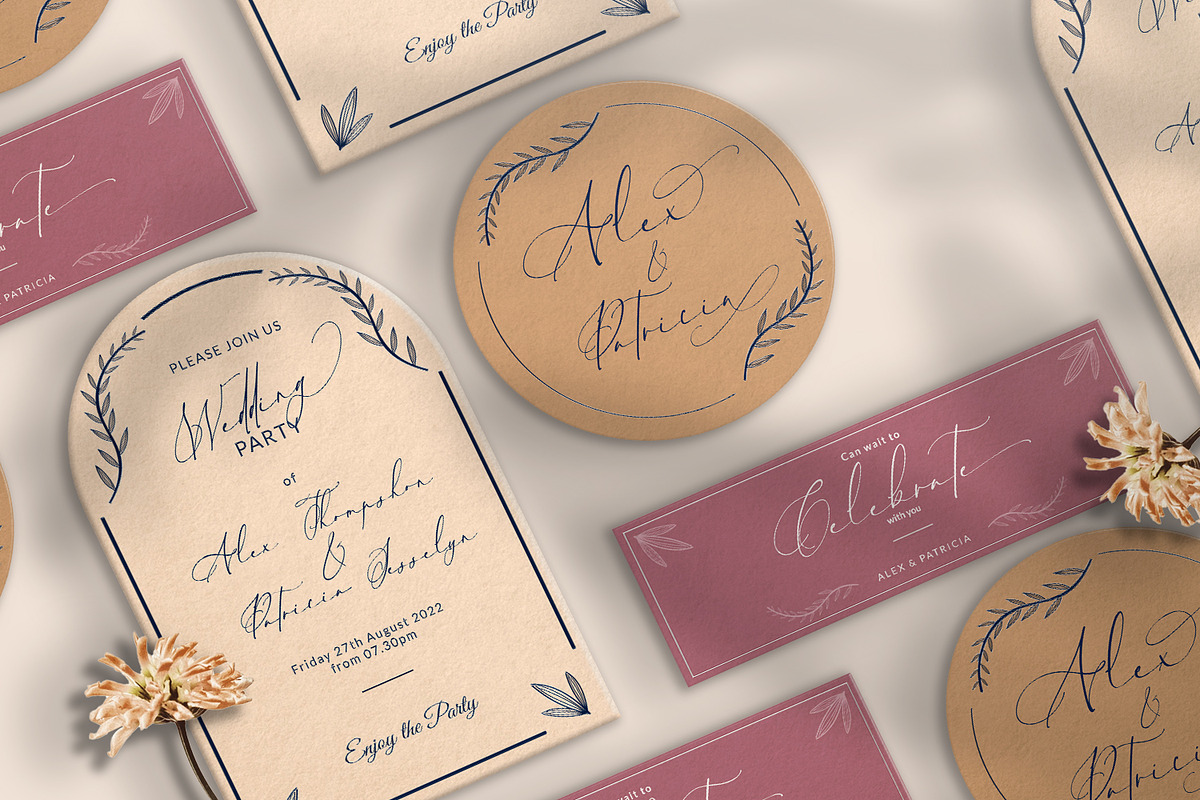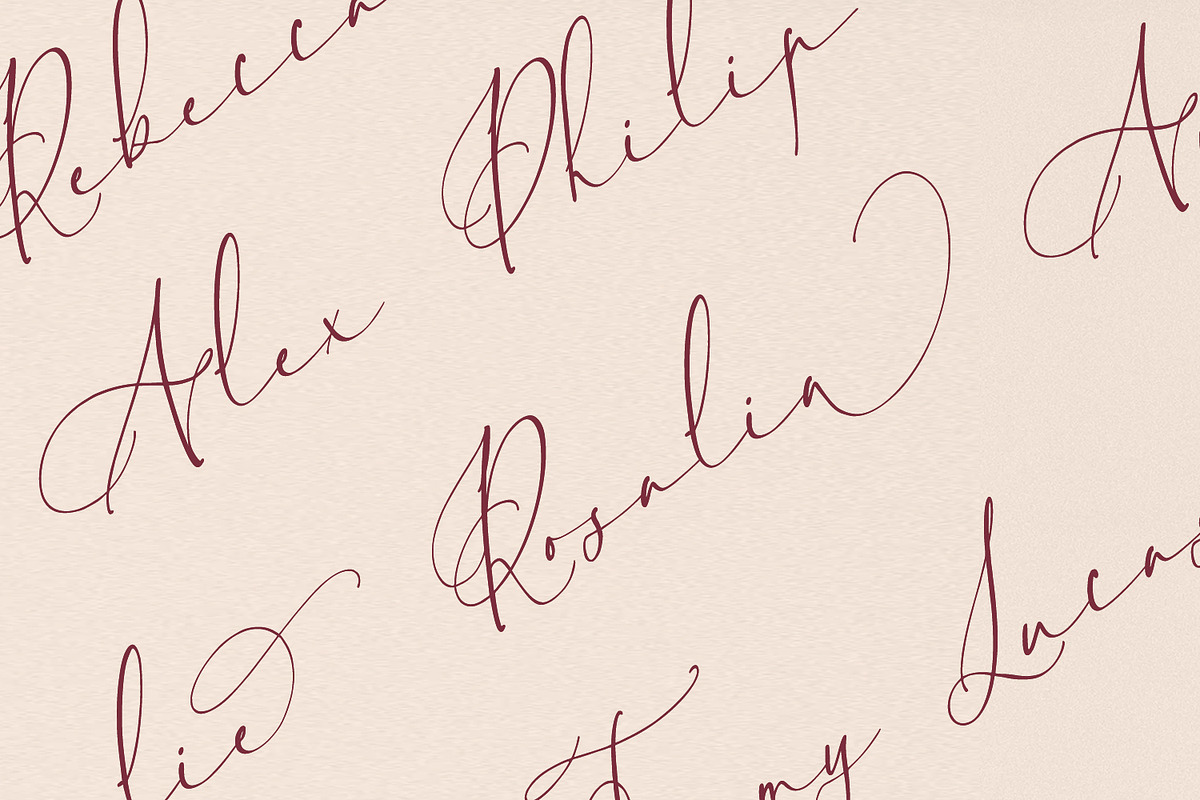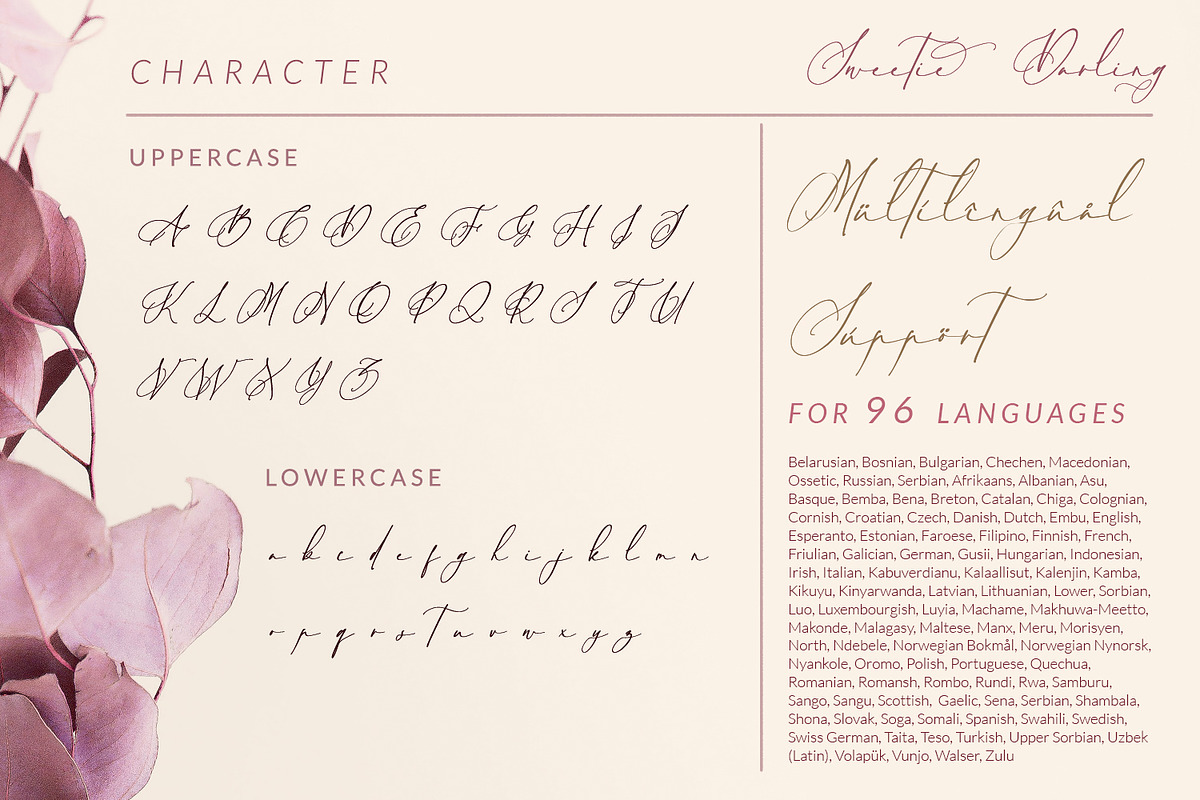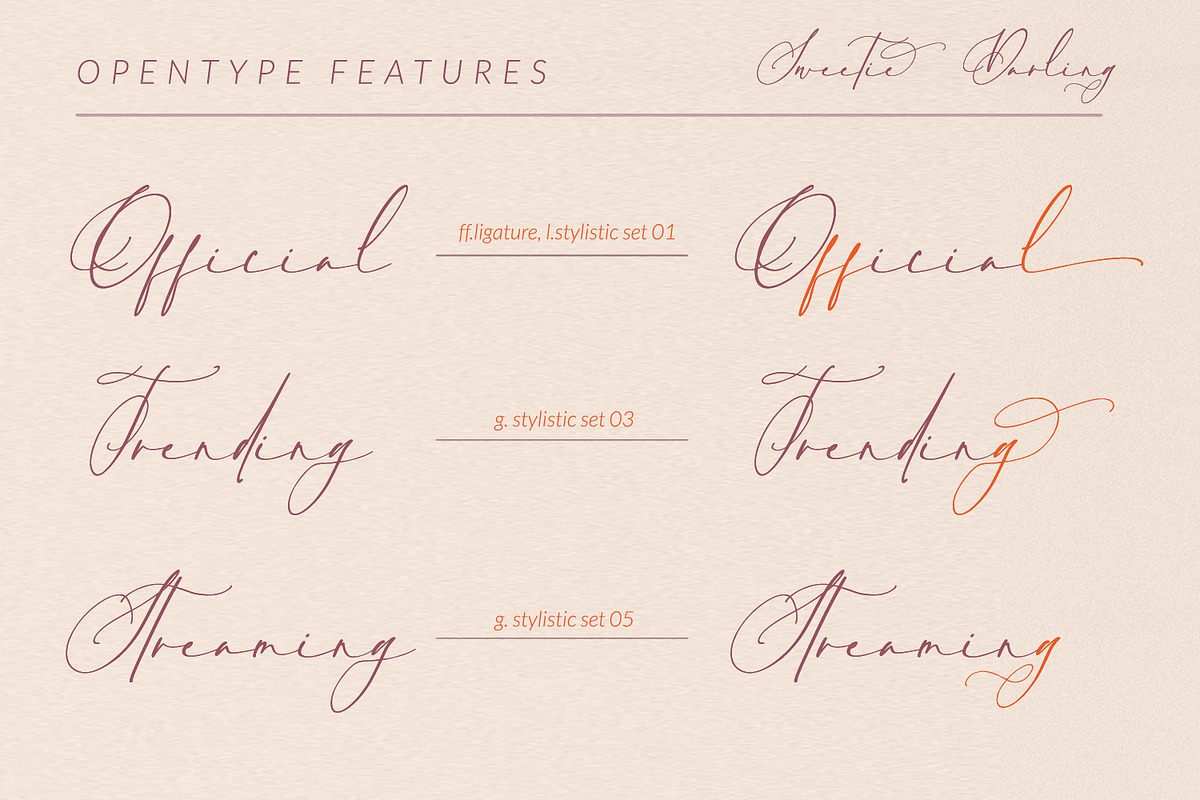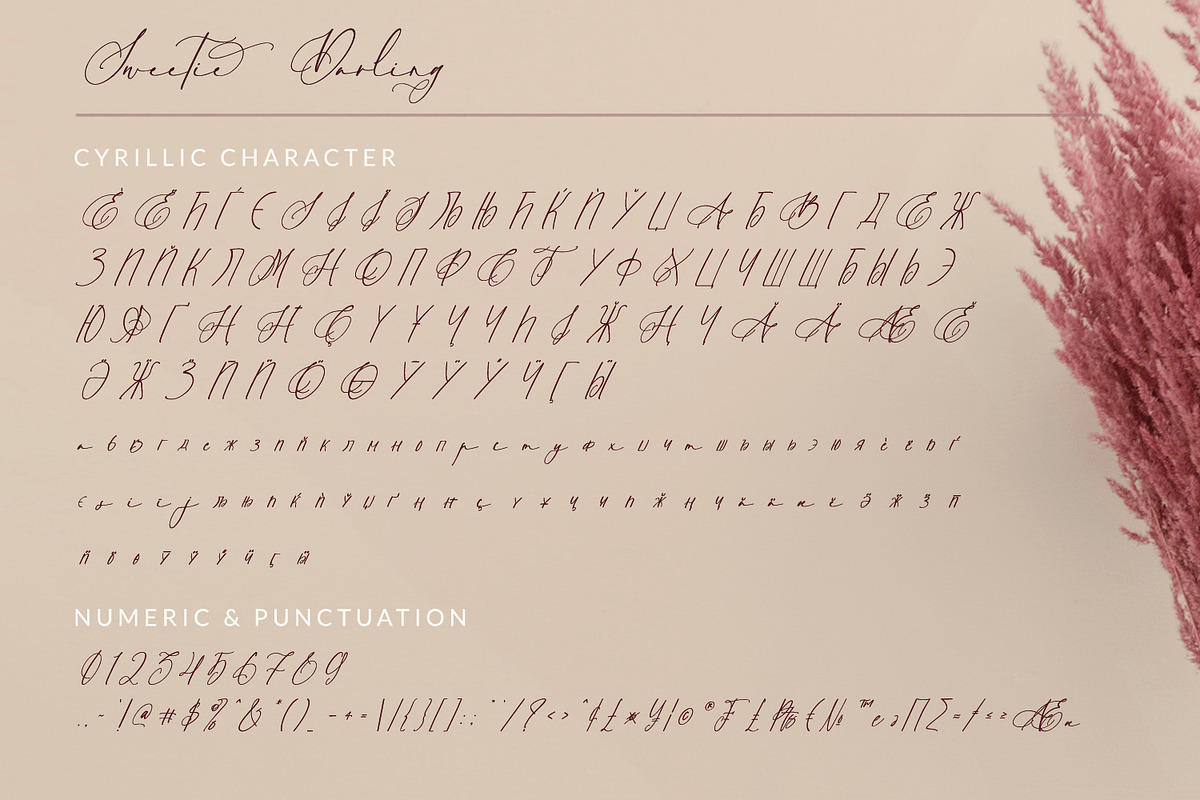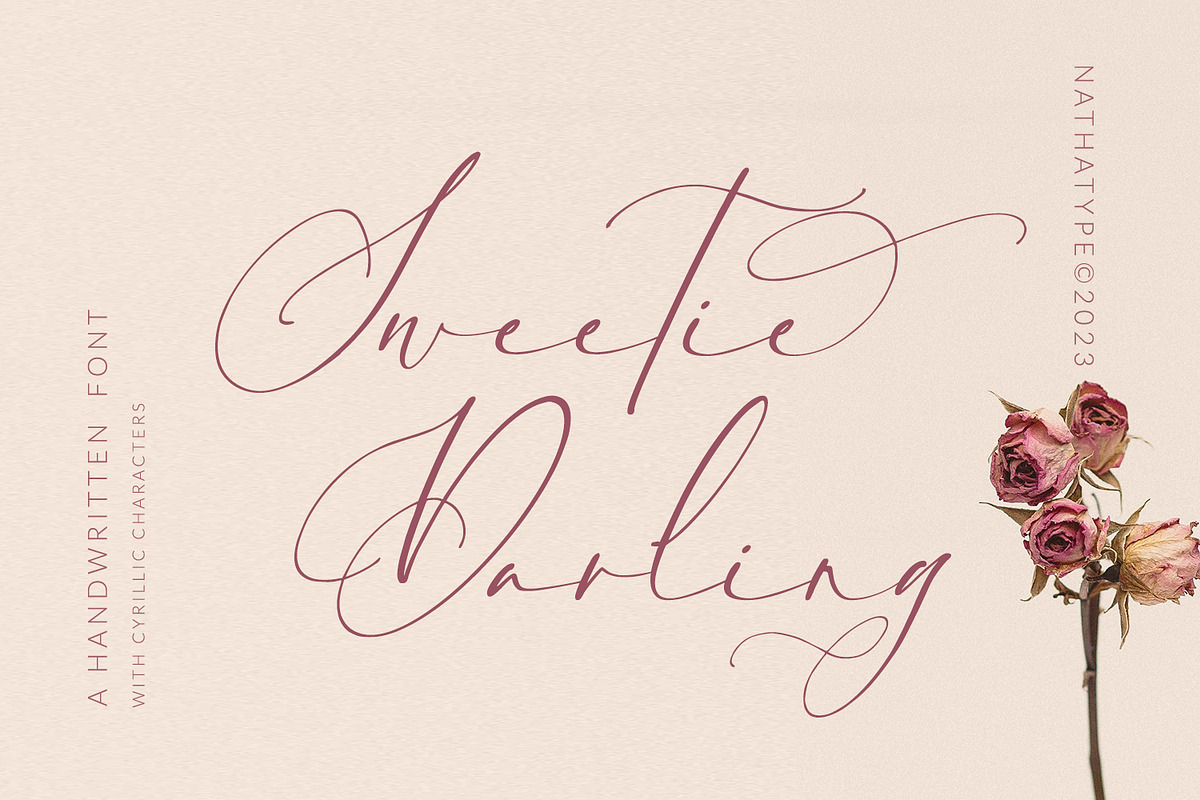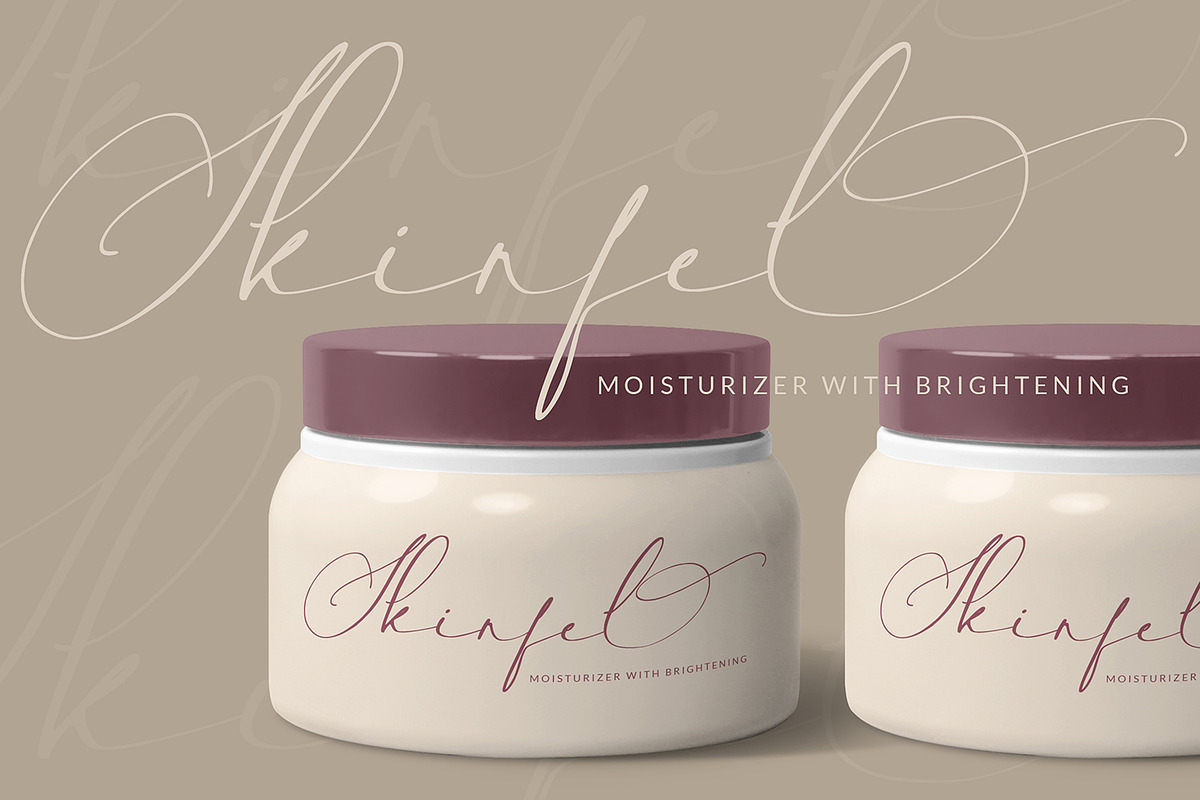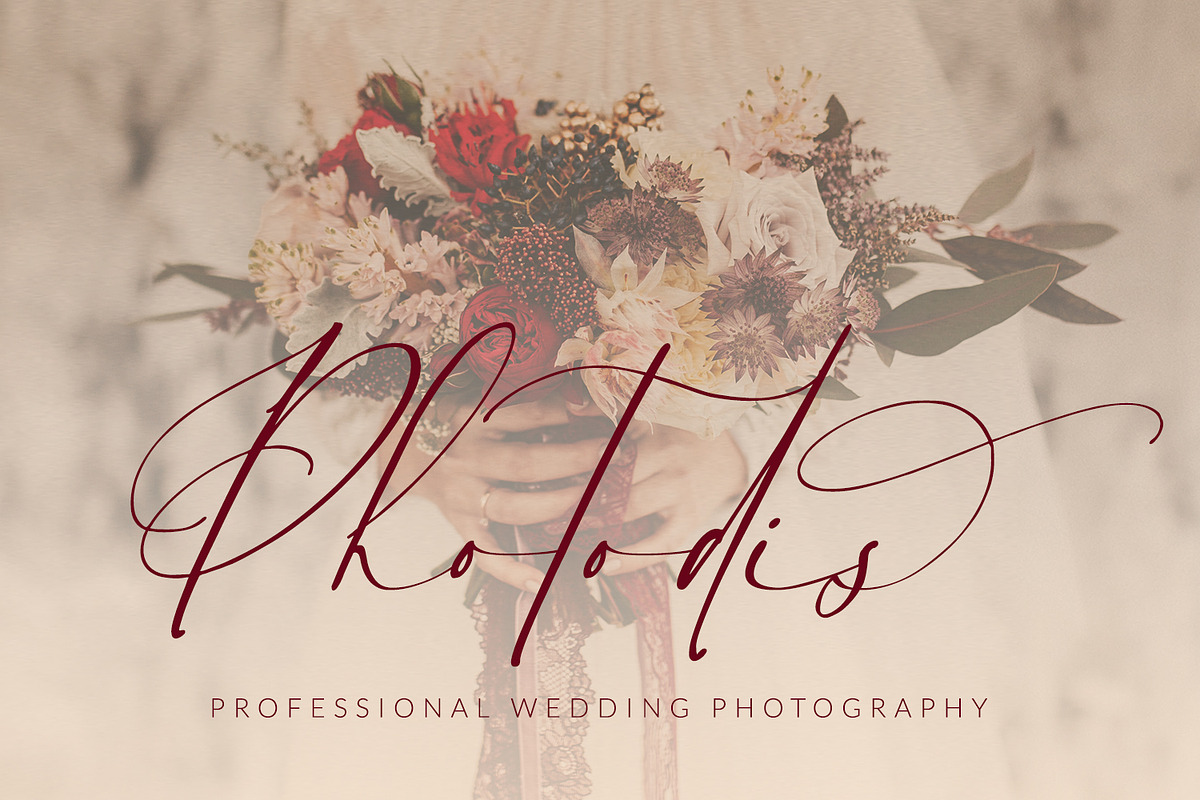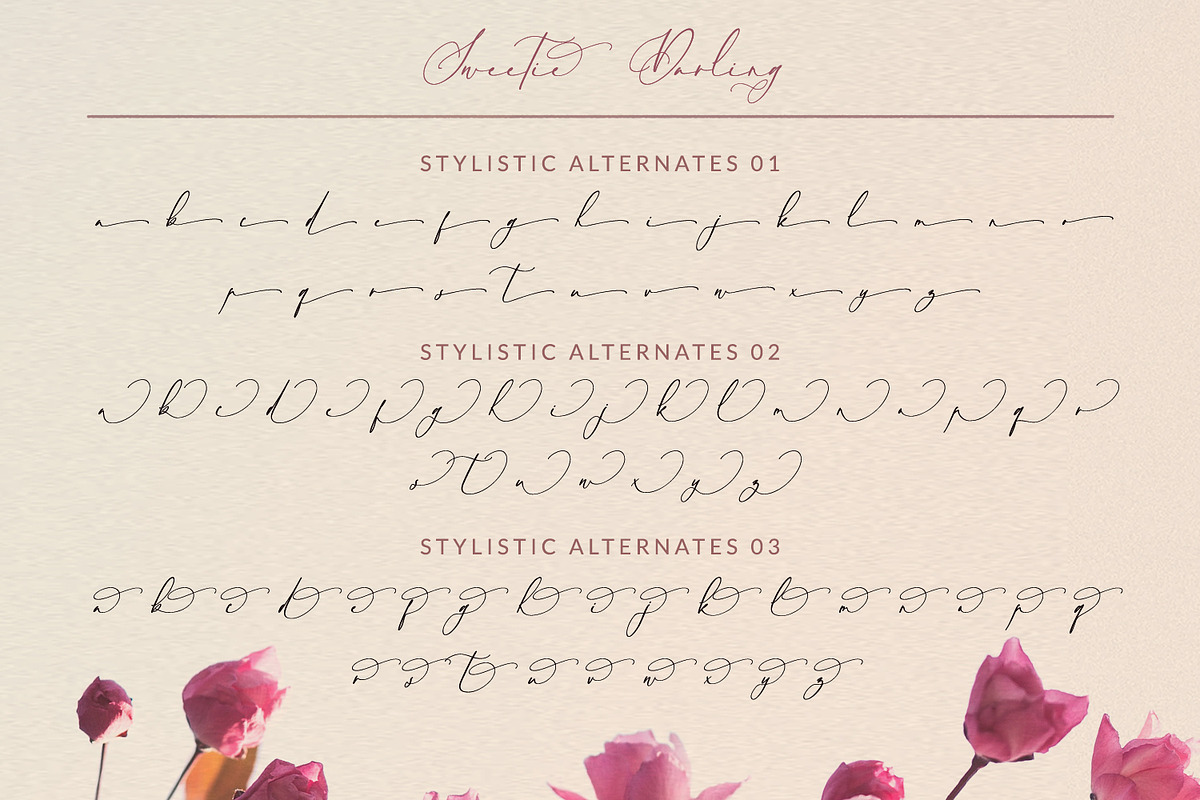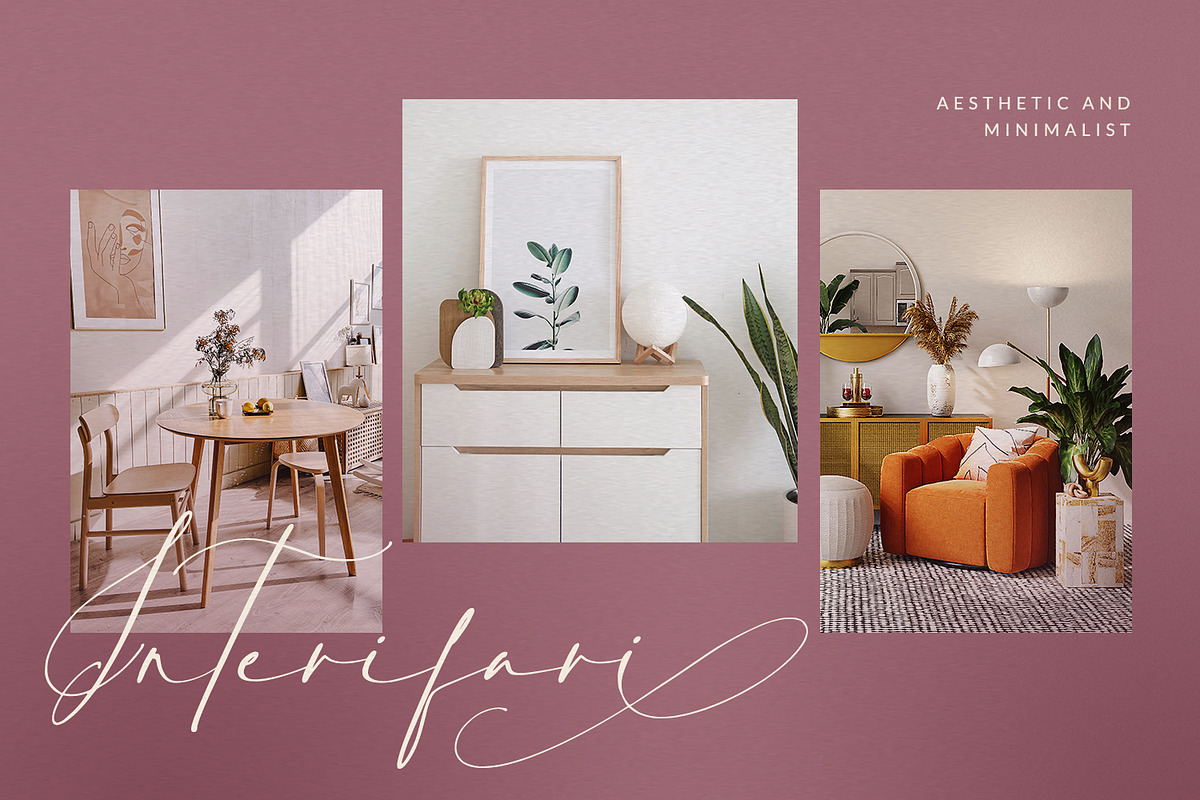
Sweetie Darling
Finding a perfect font for your designs may be tough work and time-consuming. Definitely, you never want to have a too plain, common font, but you have trouble finding the one to express your creativity and visions precisely. For that reason, Sweetie Darling is here to meet your needs.
Sweetie Darling is a cursive-style handwriting script font. Like other cursive font designs, the letters are interconnected, but another character of this font is that the letters have high contrasts in curved edges to beautify the display. Due to the seemingly complex font style details to add the font’s legibility, it is suggested to apply this font for big text sizes. Additionally, you can enjoy the available features here.
Sweetie Darling fits best for various design projects, such as brandings, headings, magazine covers, quotes, invitations, greeting cards, printed products, merchandise, social media, etc. Find out more ways to use this font by taking a look at the font preview.